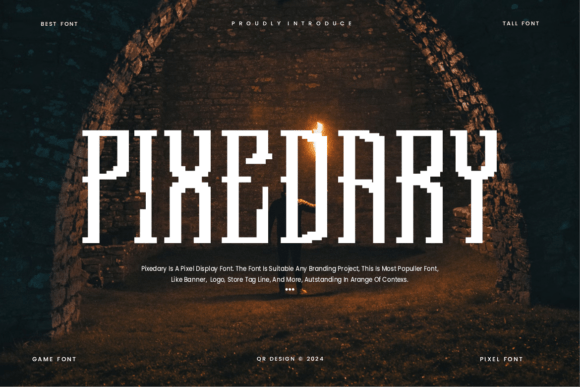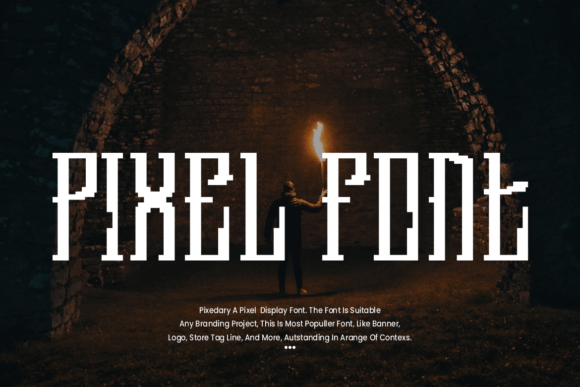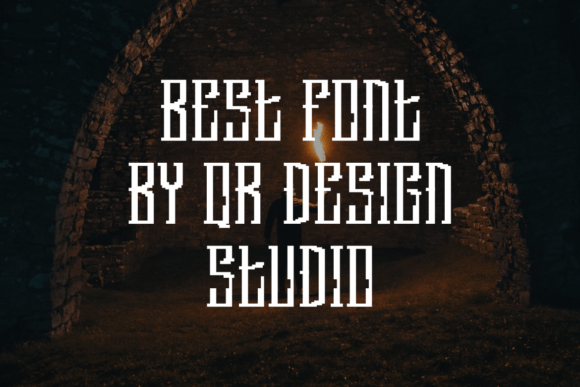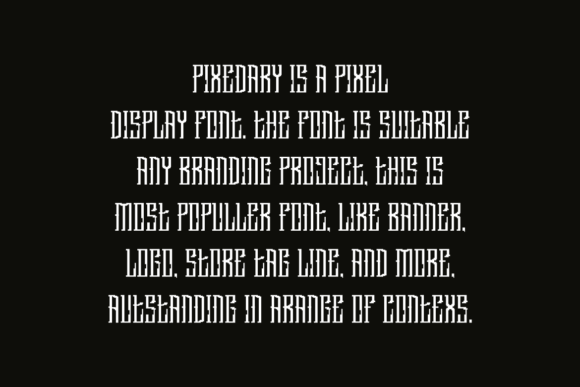
Pixedary Font
About the Pixedary Font
Unleash your creativity with Pixedary Font, a versatile font perfect for a wide range of applications. Pixedary is an incredibly cool and unique font. It has a modern yet whimsical style and it will undoubtedly immerse your designs into a magical world.
Pixedary’s modern yet whimsical style makes it ideal for headlines, short body text, logos, and branding projects requiring a touch of playful sophistication. It excels in applications like posters, packaging for creative products, and social media graphics. However, its unique character isn’t suited to large blocks of text or UI elements where readability is paramount. Avoid using it for lengthy paragraphs or website body copy.
Pairing Pixedary effectively depends on the desired balance. For a bolder, more striking effect, consider pairing it with a clean sans-serif like Open Sans or a geometric font such as Futura. To soften its whimsical edge and create a more elegant feel, a classic serif typeface like Garamond or a slightly more modern serif like Lato would work well.
Its core personality is best described as playful yet sophisticated, bold yet approachable—a modern font with a touch of vintage charm. Brands targeting younger demographics, creative industries, or those wishing to project a fun and innovative image would find Pixedary a strong visual asset.